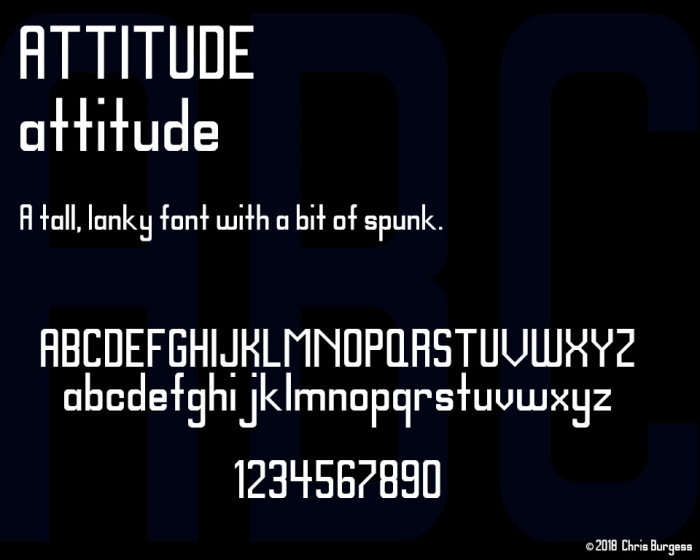
• I wanted to go with a tall-looking appearance when I was creating this font.  Aside from the lower-case letters, I believe I have achieved what I was going for.  The idea for the name, "Attitude", was an interesting one.  My mother saw what I was making and thought some of the letters had some sassiness or character about them.